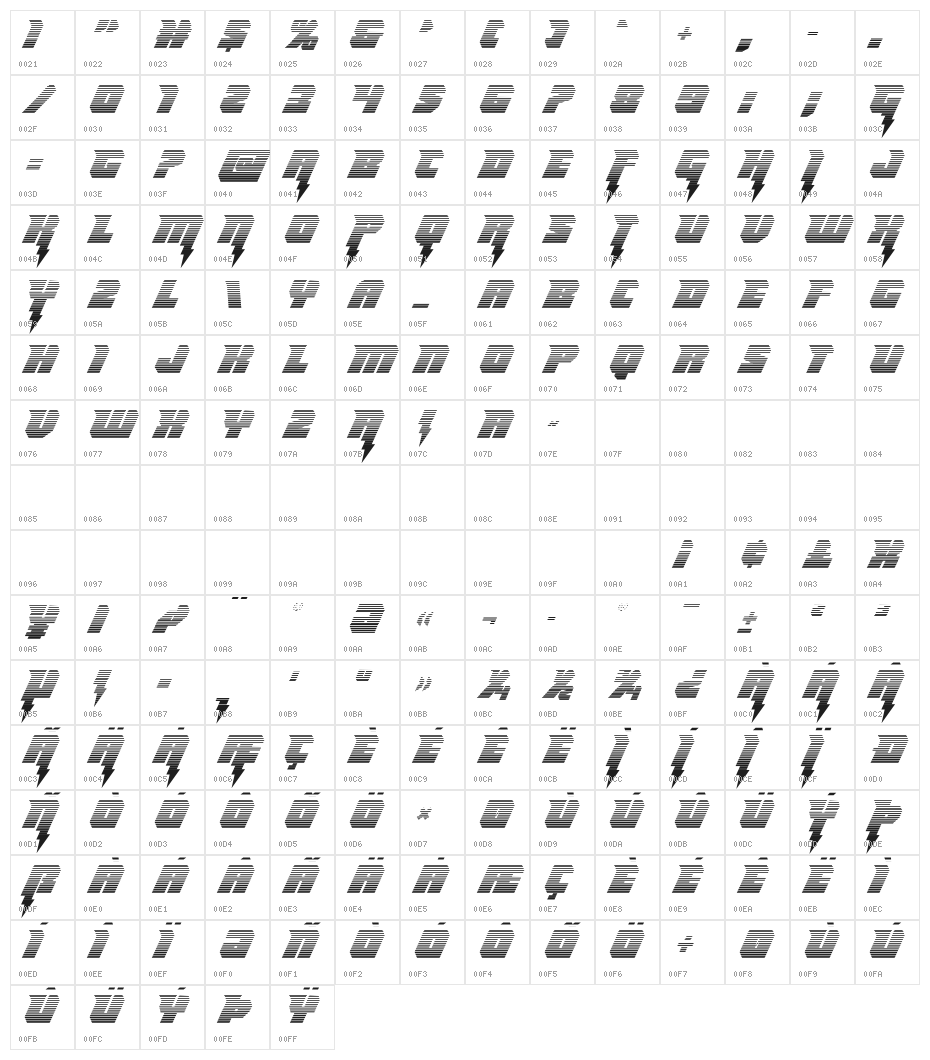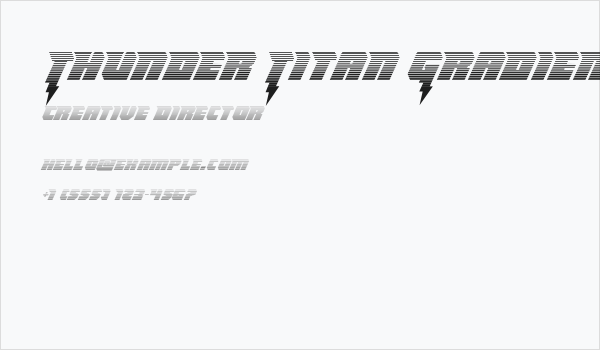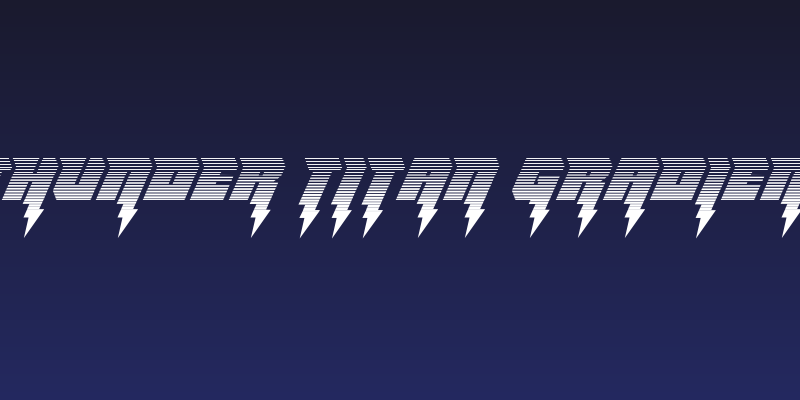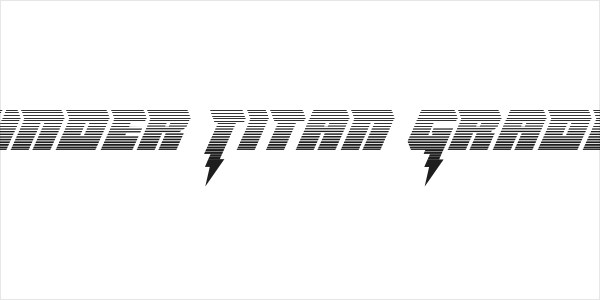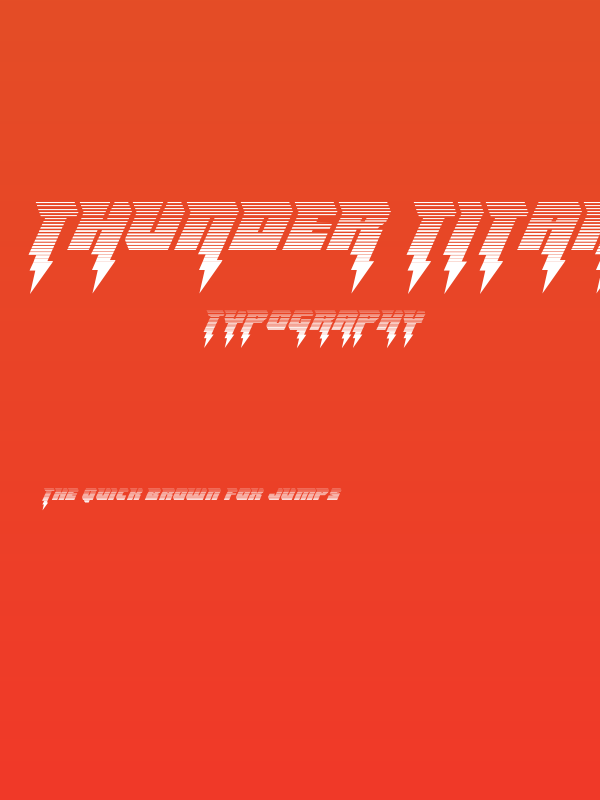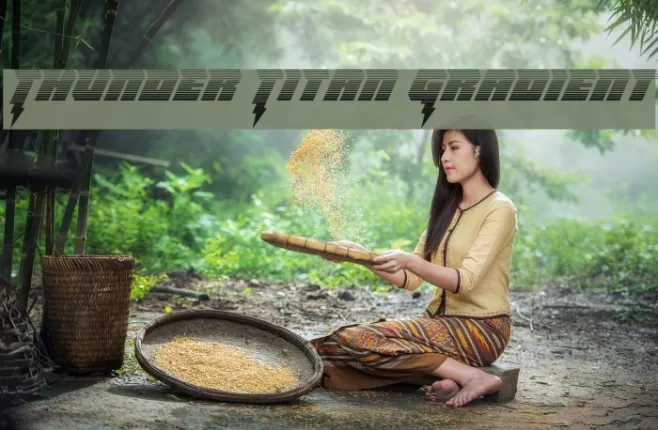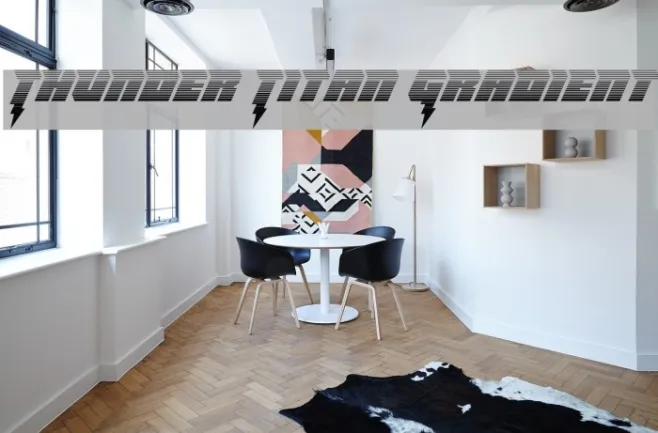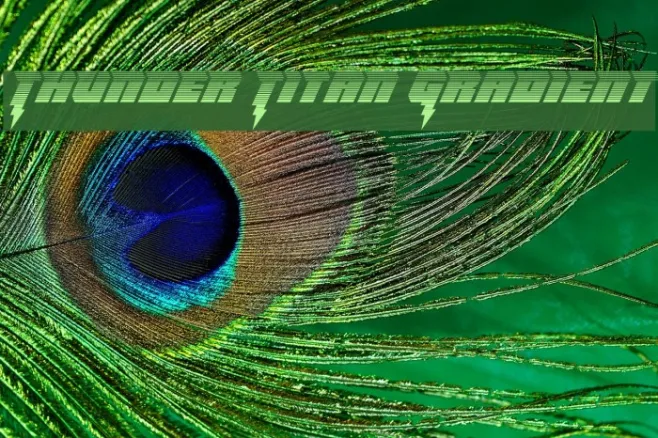
Thunder Titan Gradient Font
Thunder Titan Gradient Description
This font features a bold, dynamic design with a distinct gradient effect that gives each character a sense of movement and energy. The letters are composed of horizontal lines that create a layered look, reminiscent of speed lines or motion blur, which adds to the overall dynamic feel. The inclusion of lightning bolt elements further enhances its energetic and powerful aesthetic. This font is perfect for projects that require a strong, impactful presence, such as sports branding, action-themed posters, or music album covers. Its unique style makes it stand out, ensuring that any text set in this font will capture attention.
| Proposed Projects | Sports branding, action-themed posters, music album covers, dynamic logos. |